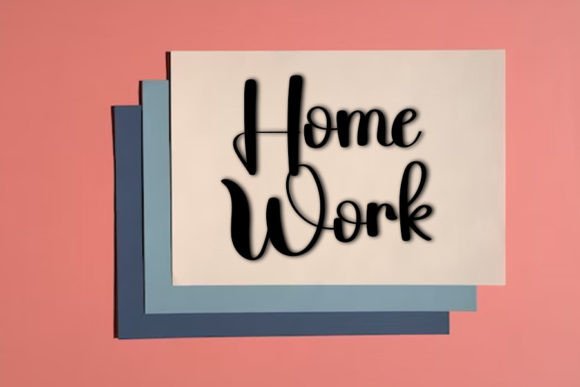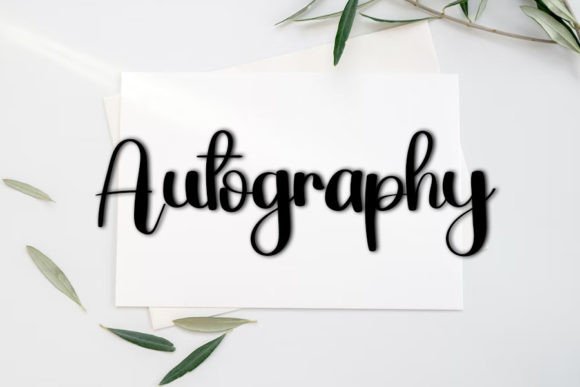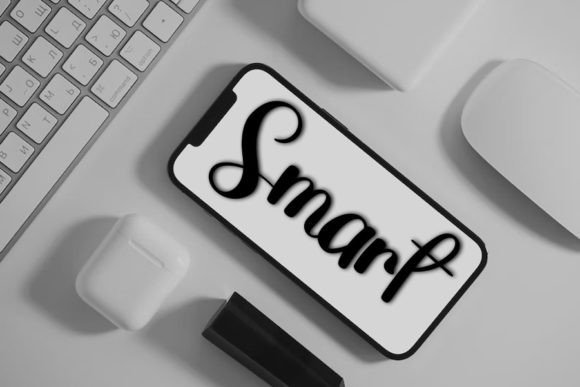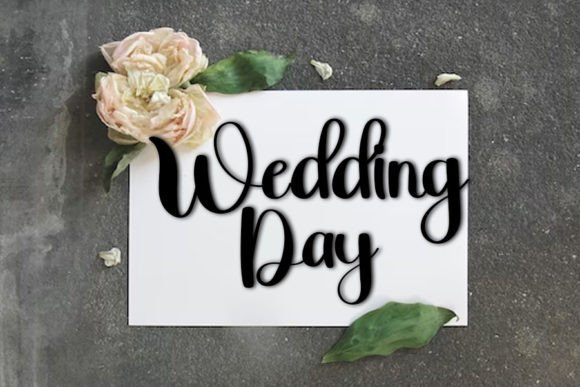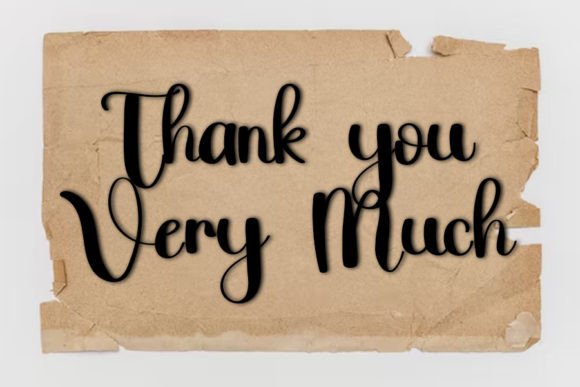
Wrong Font
About Wrong Font
Wrongfont is a fresh and neat handwritten script designed to elevate your creative projects. When you download Wrongfont, you gain access to a versatile and stylish script that adds personality and charm to your designs.
This font combines modern freshness with a clean, handwritten look. It is ideal for adding a handcrafted feel to logos, invitations, quotes, and more. The neat strokes ensure readability while keeping the design playful and original.
Best Uses for Wrong Font
Wrongfont suits a variety of creative applications, including:
• Craft projects that need a personalized touch
• Digital designs such as social media graphics and websites
• Greeting cards and invitations for a unique handwritten style
• Branding projects where originality is key
Its versatility makes Wrongfont a valuable addition to any font collection.